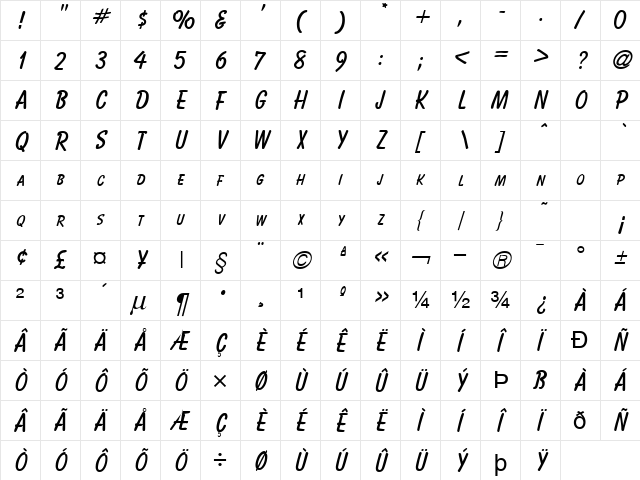
Bassett Normal
Design Context for Bassett Typeface
Bassett takes a measured approach to typography — its balanced proportions and neutral character make it a reliable workhorse for both digital and print work.
Pro Tip: Use Bassett in both headline and body roles to test its range before committing to a single application.